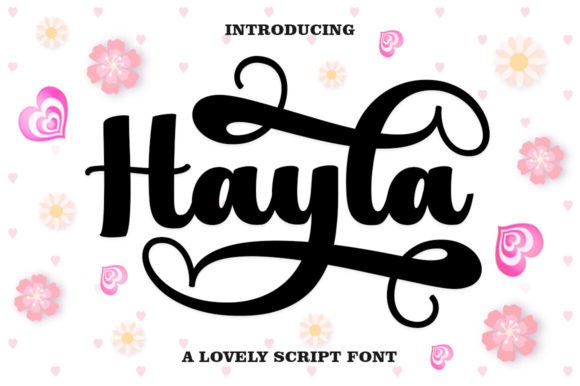
Journey into the realm of typography and discover the enchanting allure of Hayla Font, a meticulously crafted script font that captures the essence of elegance and charm. Inspired by the graceful strokes of calligraphy, Hayla Font dances across your designs with a fluidity that's both captivating and mesmerizing.
With its sweeping curves and delicate flourishes, Hayla Font exudes a timeless beauty that effortlessly elevates any project it graces. Its versatile nature makes it a perfect companion for a multitude of creative endeavors, from heartfelt invitations to eye-catching logos and from captivating social media posts to stunning website designs.
Unleash your creativity and let Hayla Font weave its magic into your designs. Its PUA encoding grants you access to a treasure trove of glyphs and swashes, empowering you to add intricate details and flourishes that transform your words into works of art.
Hayla Font is more than just a font; it's an expression of your unique style and personality. Whether you're a seasoned designer or just starting your creative journey, Hayla Font is the perfect tool to elevate your projects to new heights of sophistication and charm.
Immerse yourself in the world of Hayla Font and let your imagination soar. Experience the joy of creating designs that captivate, inspire, and leave a lasting impression.